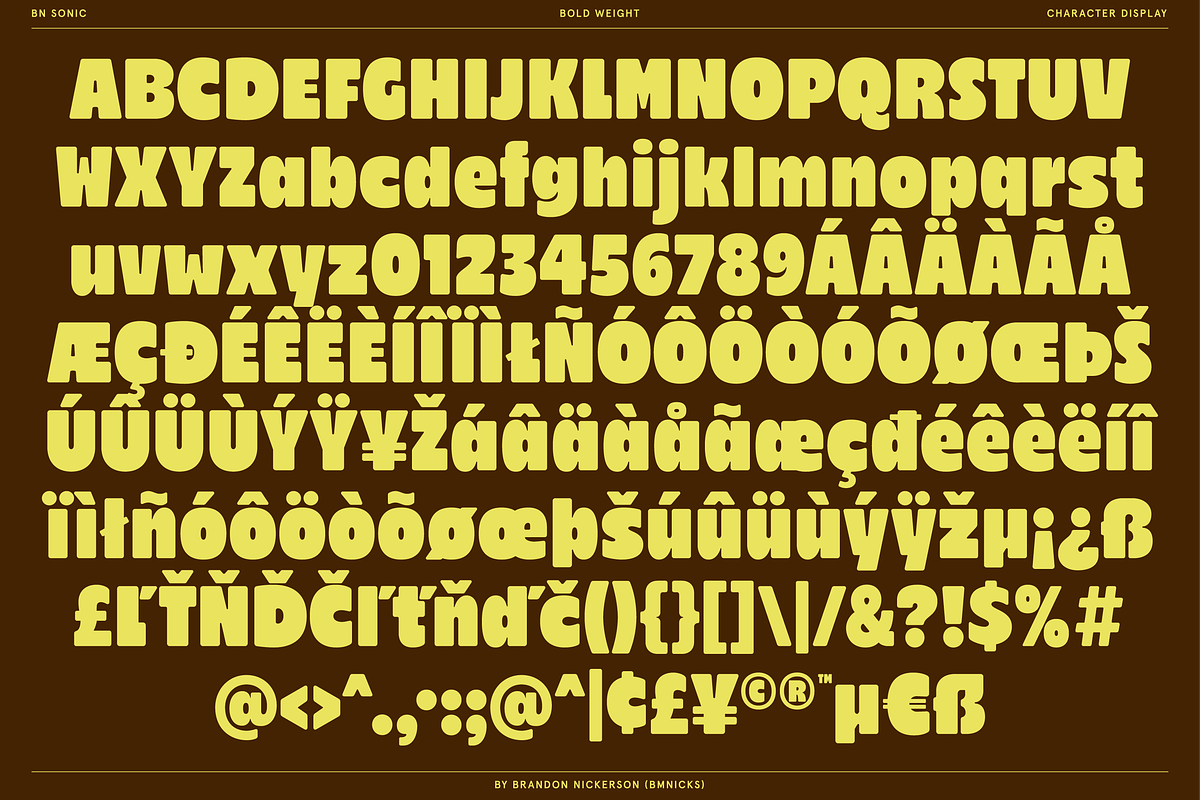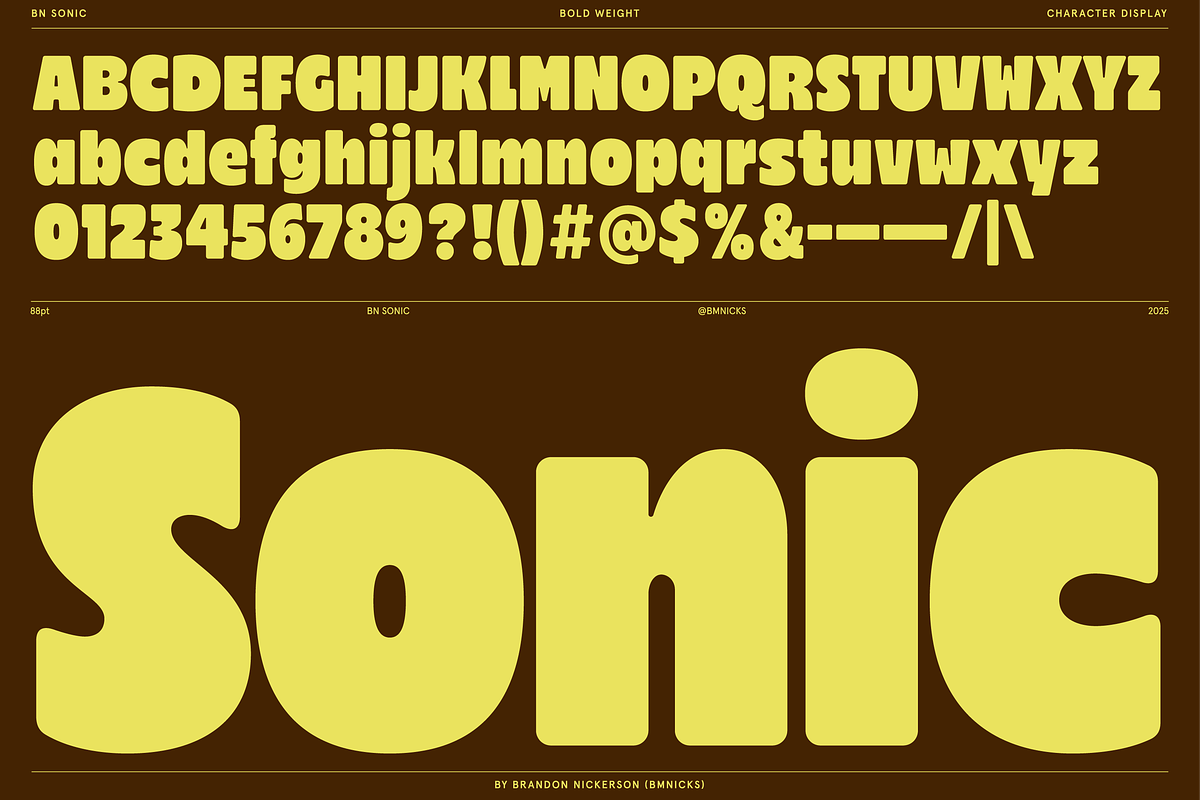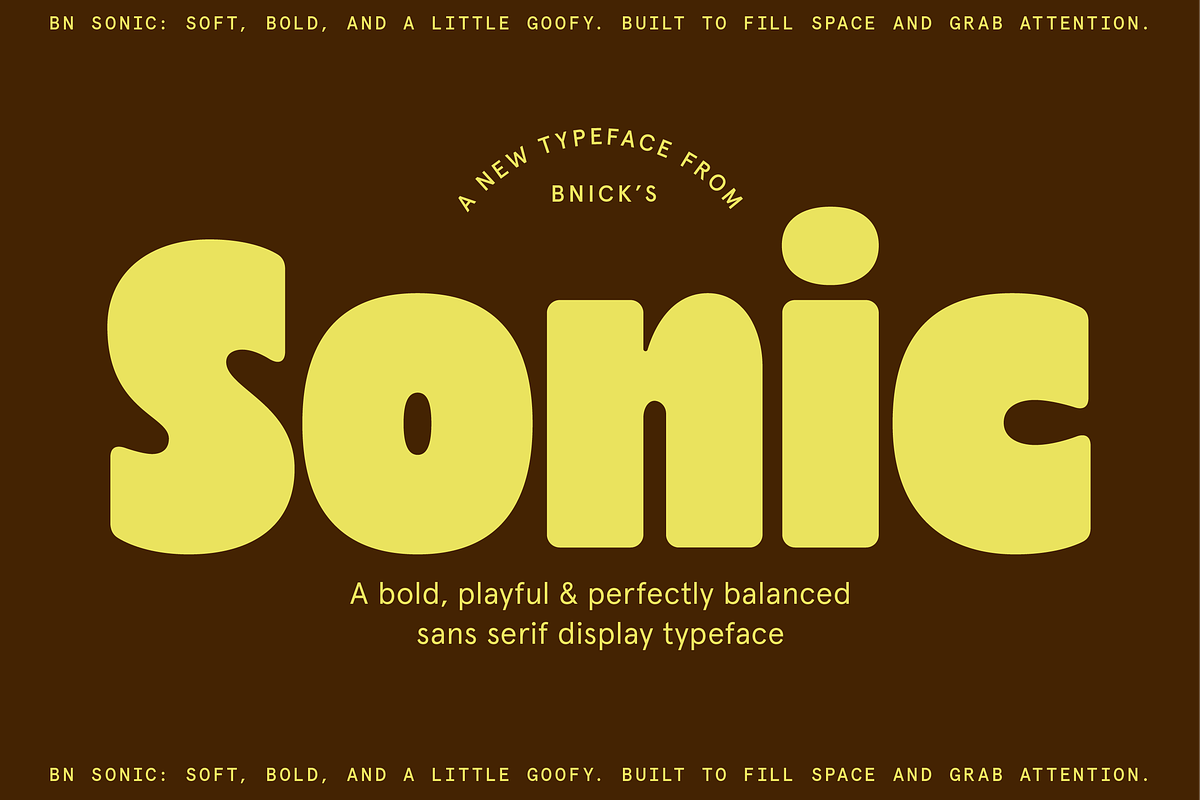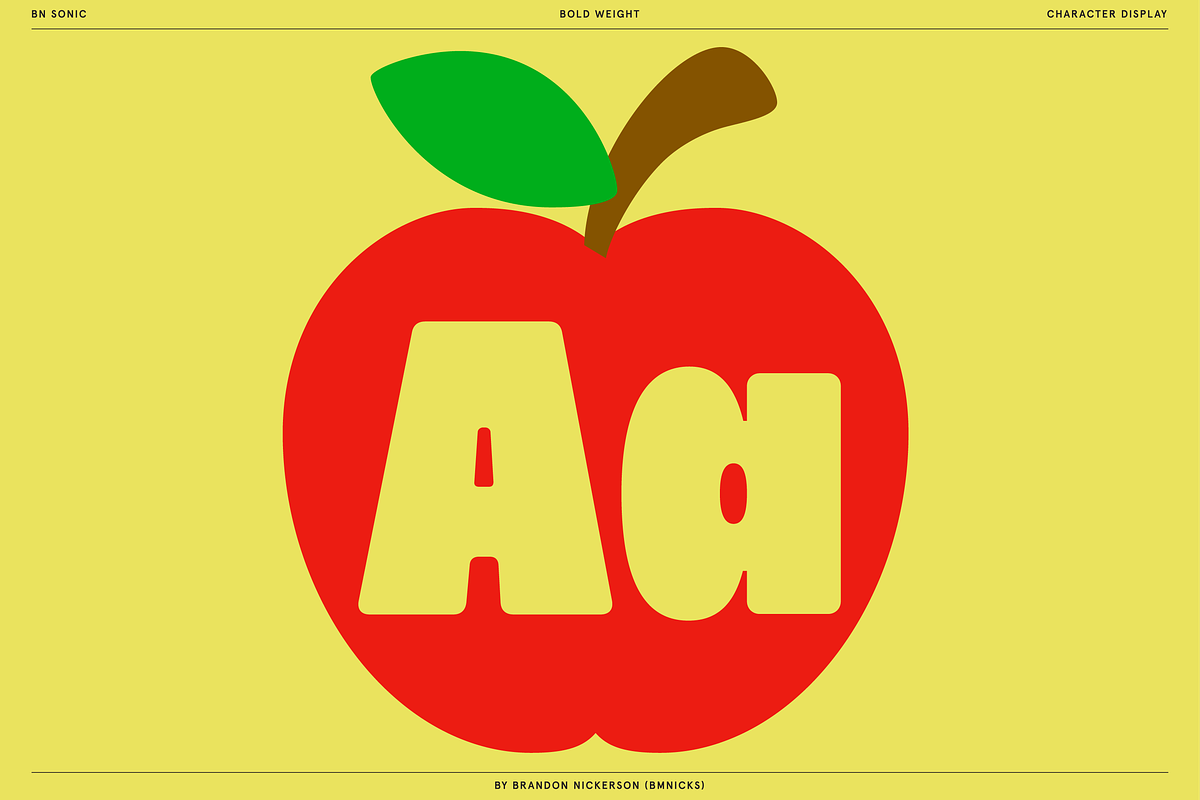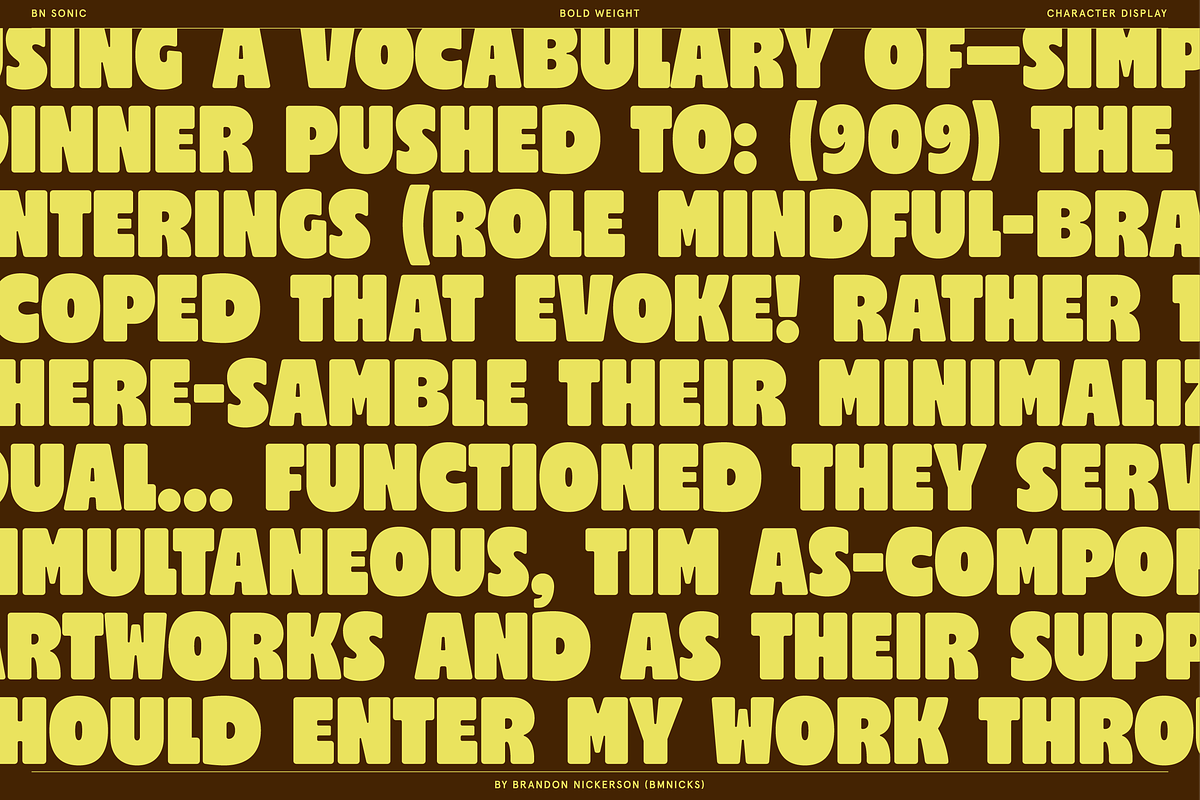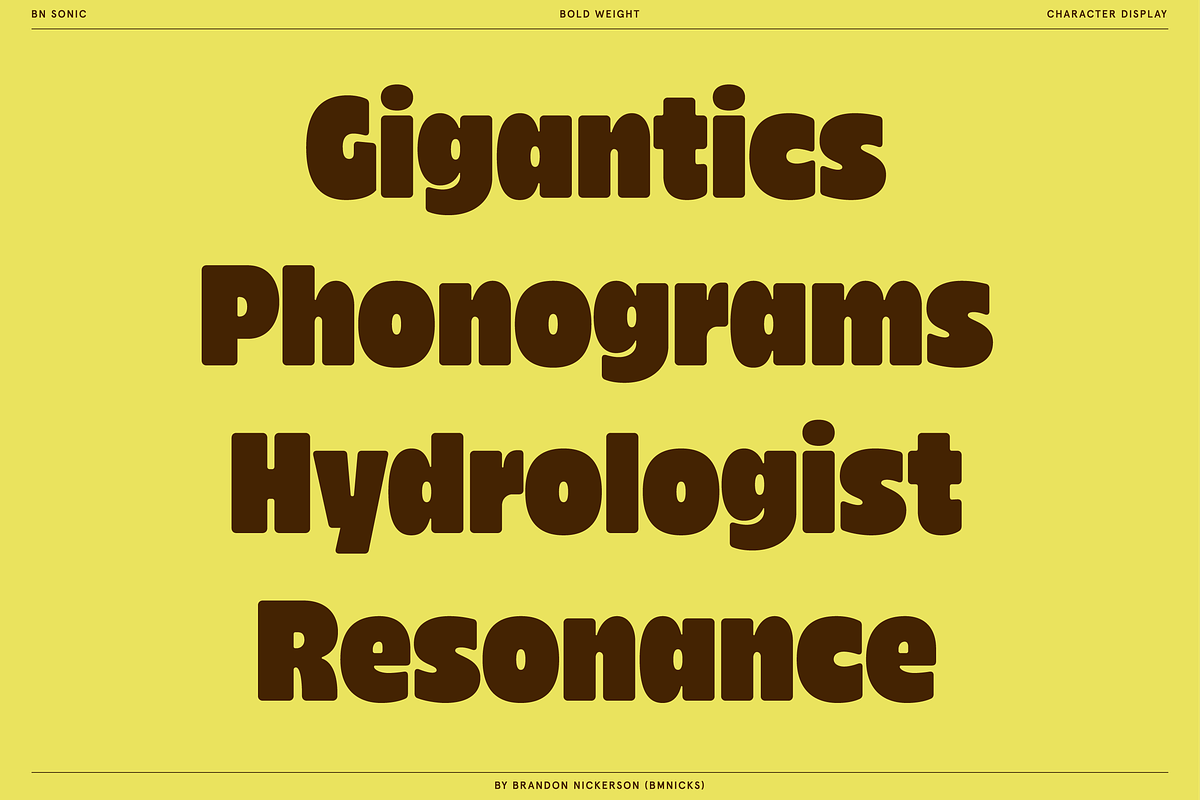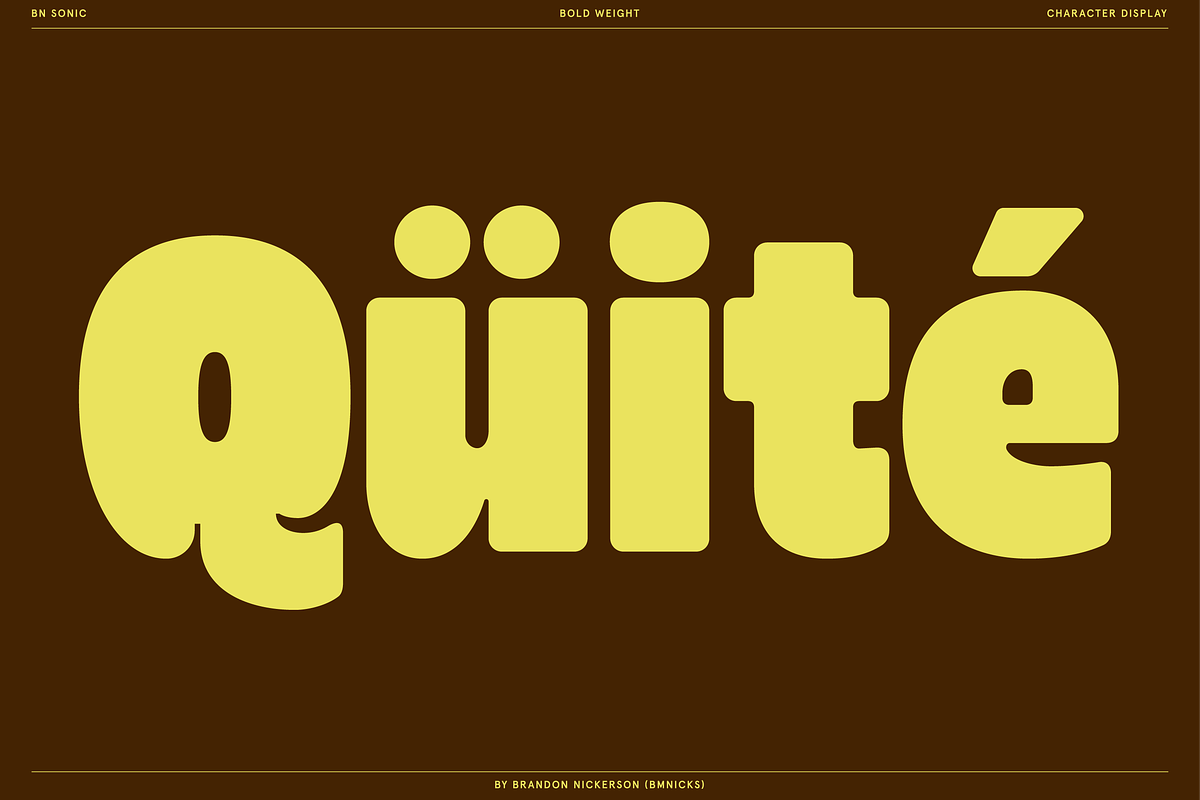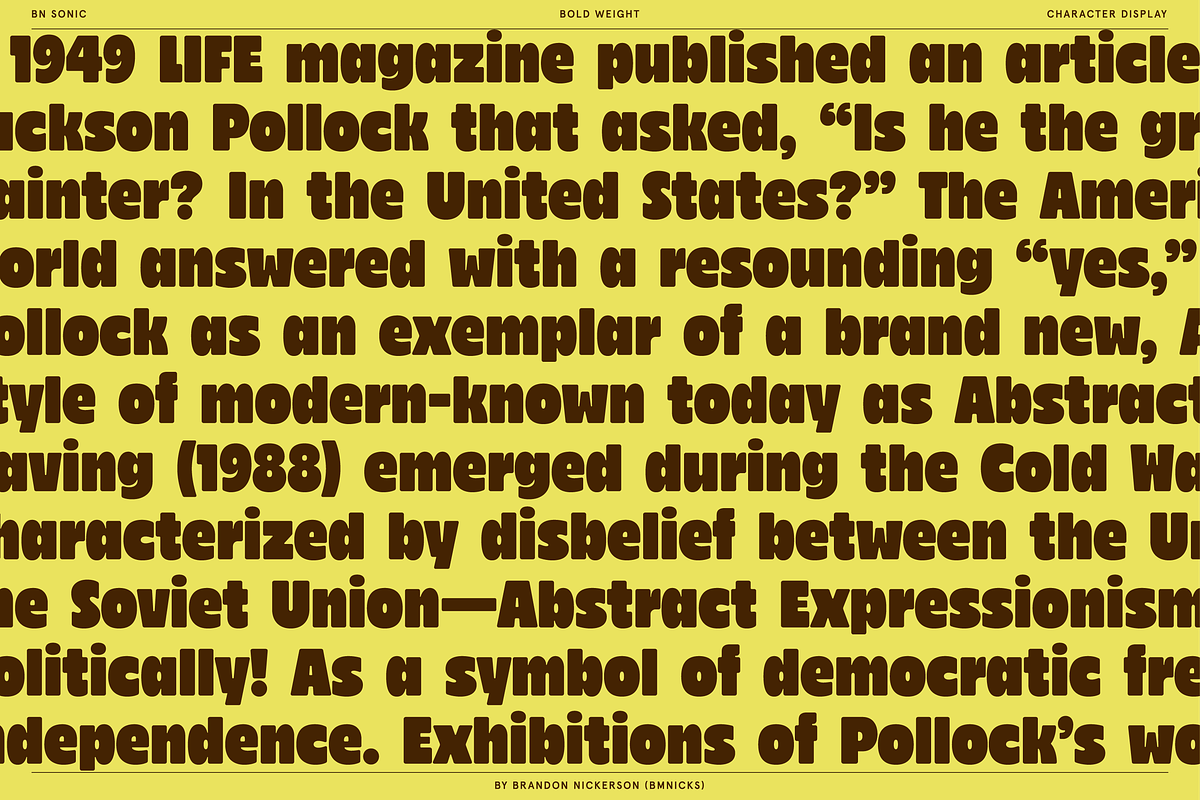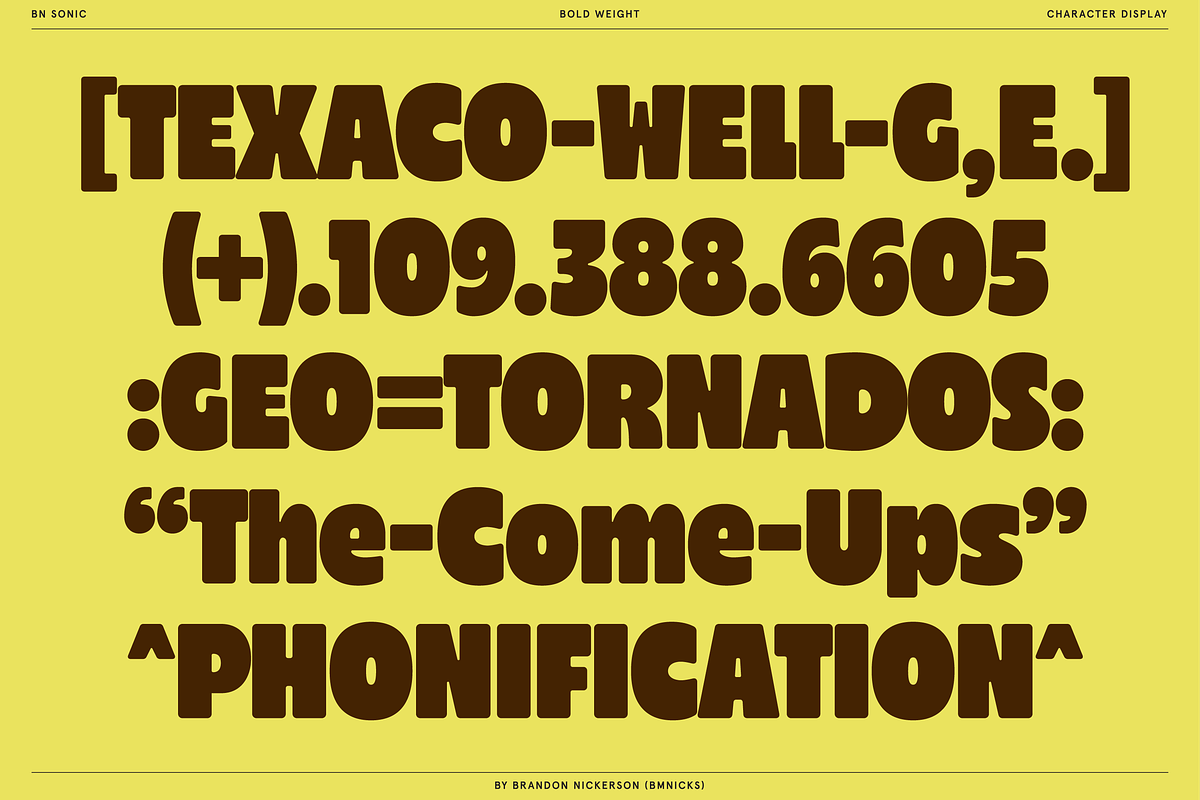
BN Sonic - Bold, Soft & Balanced
BN Sonic is a chunky, loud, high-impact display typeface built to fill space and grab attention instantly.
Designed for bold headlines, punchy branding, and scroll-stopping visuals, Sonic combines playful curves with strong geometric structure. It’s friendly but powerful — perfect for designers who want maximum personality without sacrificing clarity.
With its thick, rounded forms and compact spacing, Sonic creates dense, confident typographic color that performs beautifully in posters, packaging, social graphics, album art, and statement branding.
Ultra-bold display weight
Smooth, rounded corners with strong visual rhythm
Balanced proportions for large-scale impact
Optimized for headlines, logos & oversized typography
Branding & logo design
Posters & editorial headlines
Packaging design
Album covers
Streetwear & merch
Retro-inspired layouts
Bold typographic compositions